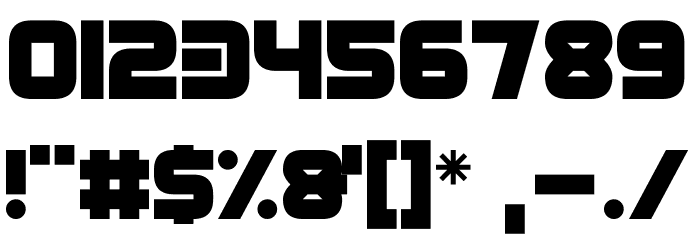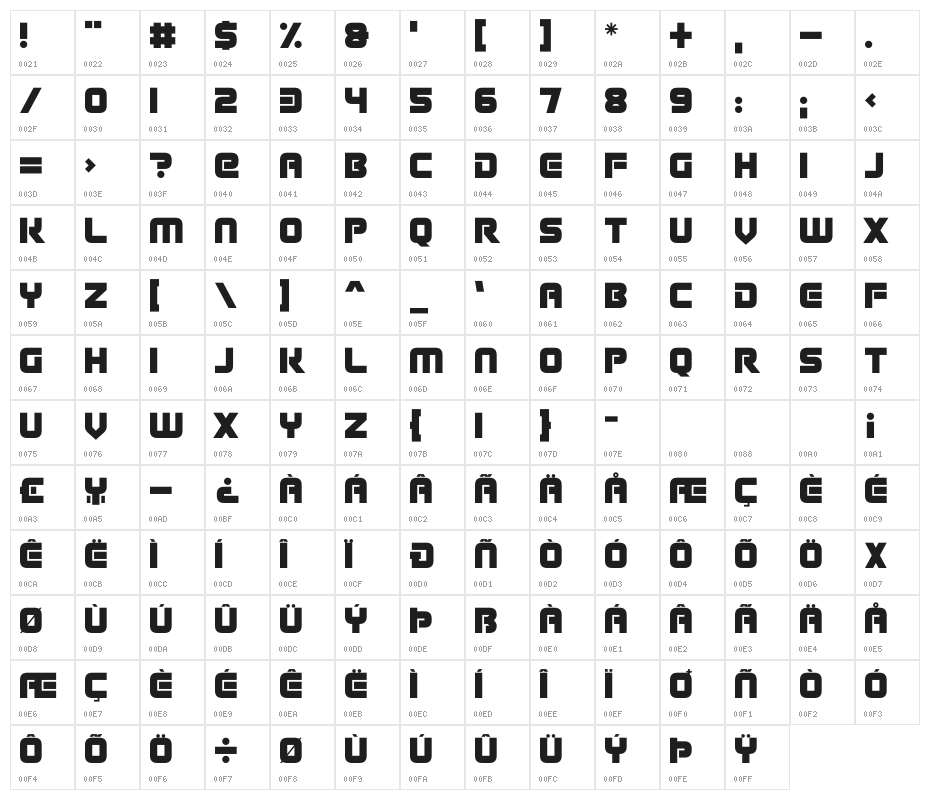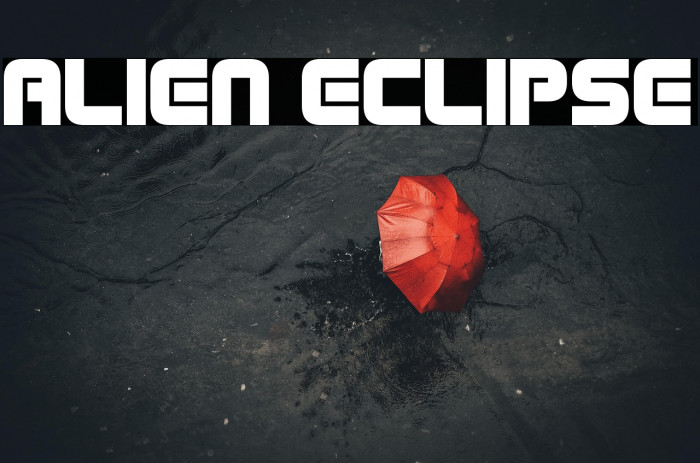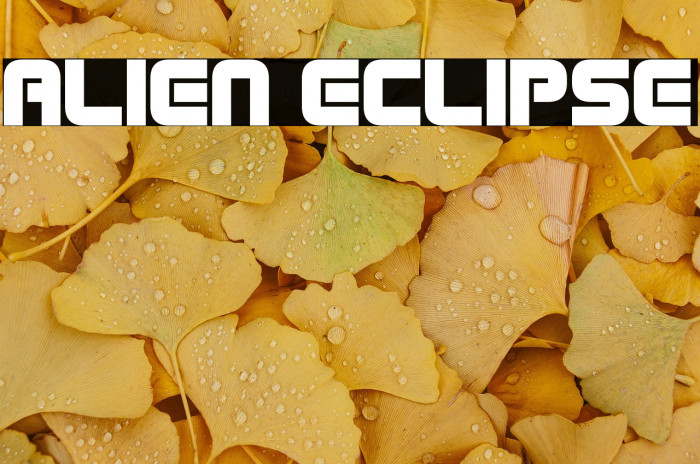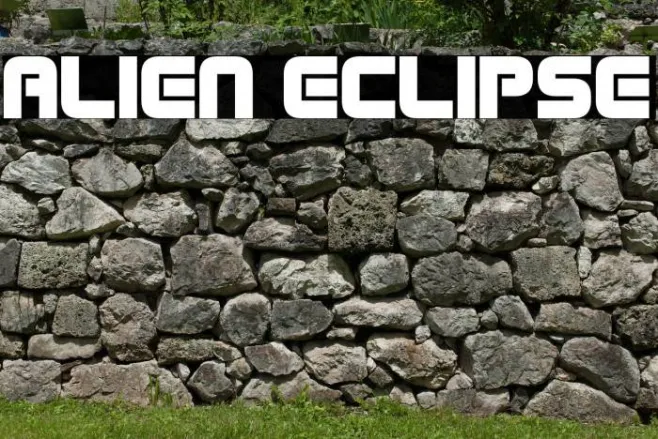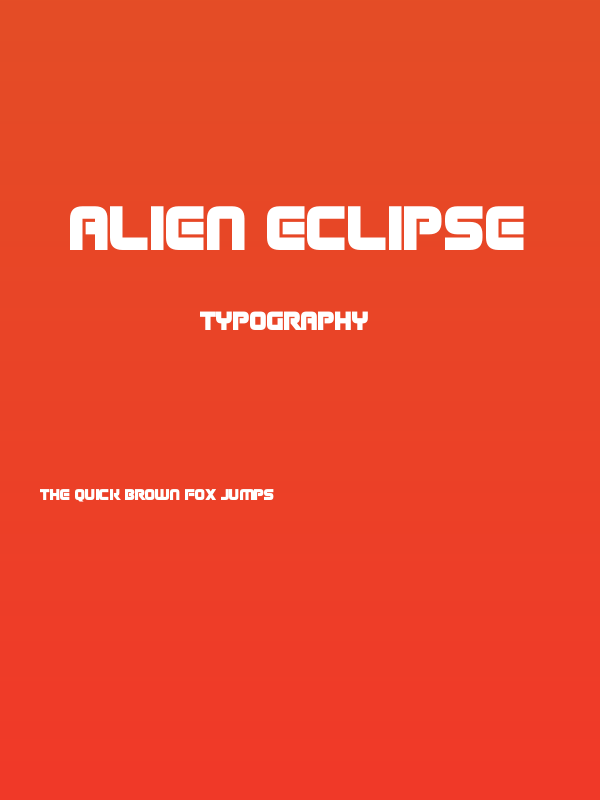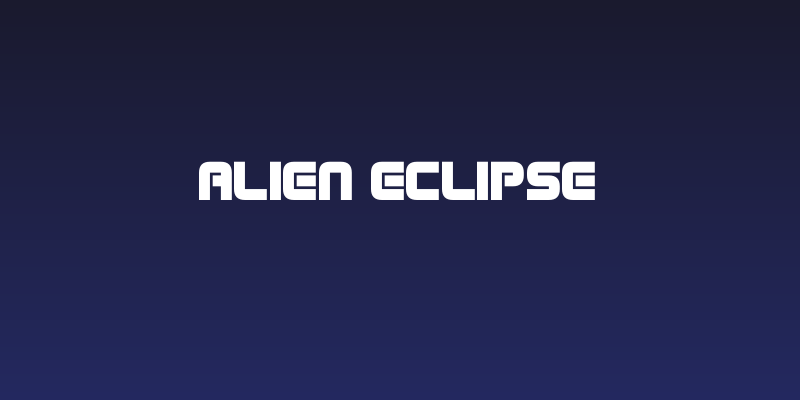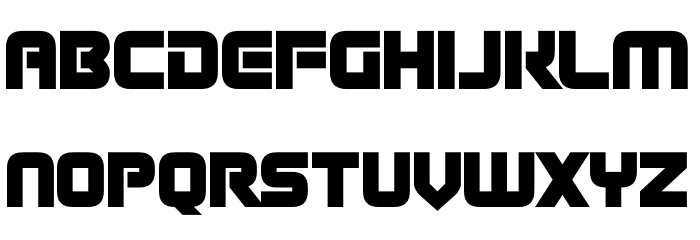
Alien Eclipse Font
Alien Eclipse Description
This font exhibits a futuristic and bold design, characterized by its geometric and angular shapes. The uppercase letters are uniform in height and width, creating a cohesive and structured appearance. The lowercase letters maintain the same boldness, ensuring consistency throughout. Numbers are distinct and easily readable, with a similar geometric style. Special characters are designed to match the overall aesthetic, making them suitable for various uses. The font's strong lines and sharp angles give it a modern and edgy feel, perfect for projects that require a standout, contemporary look.
| Proposed Projects | Ideal for sci-fi themed projects, technology branding, video game titles, and futuristic posters. |